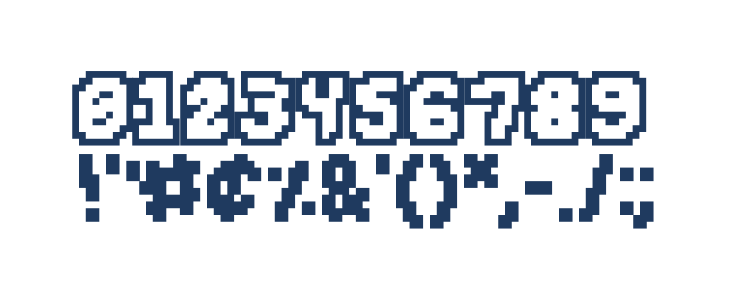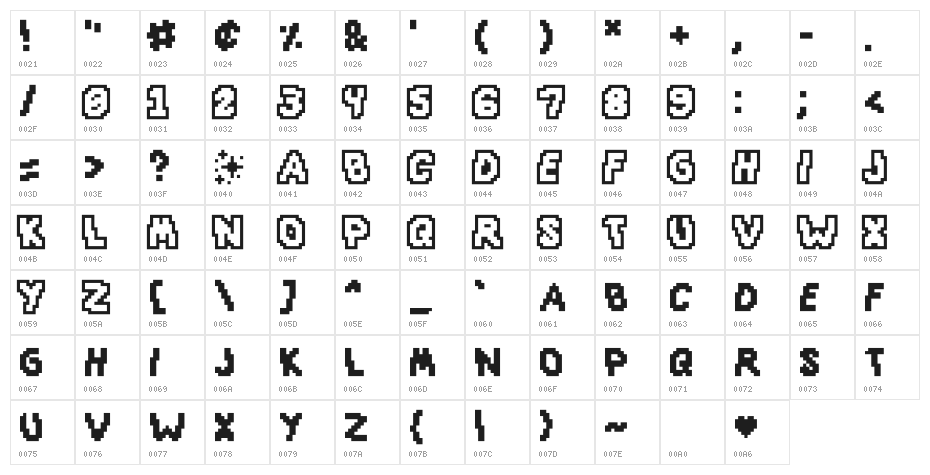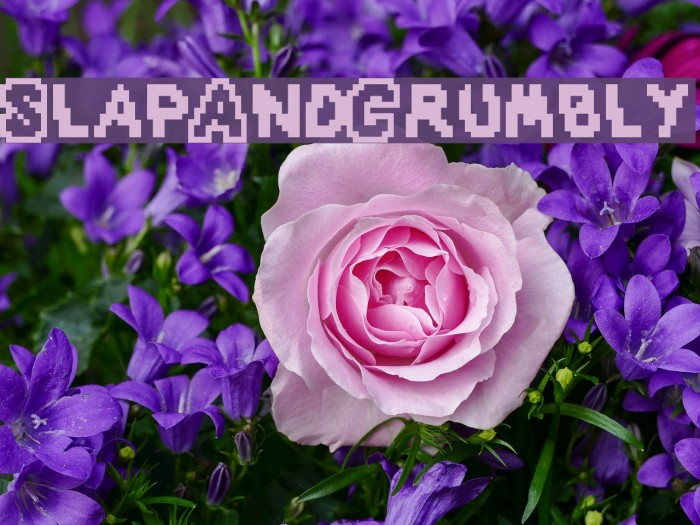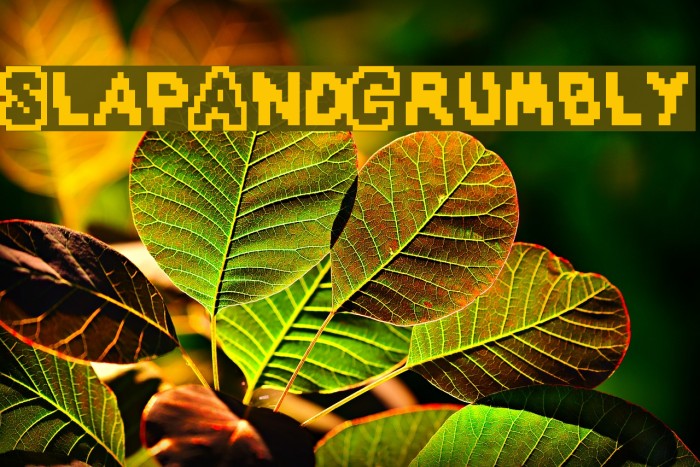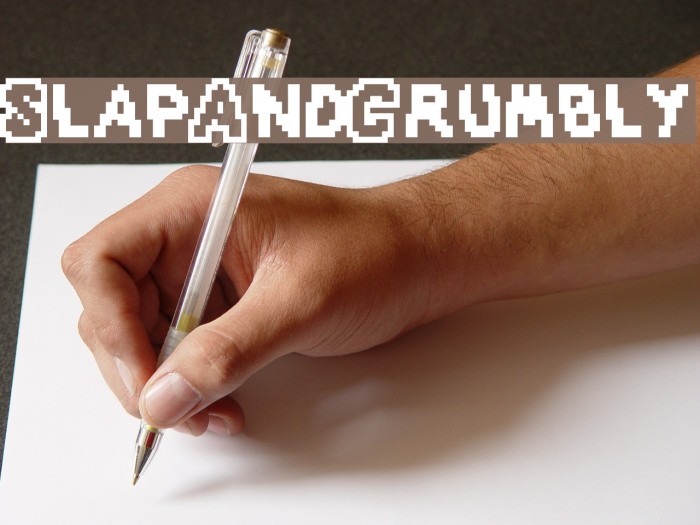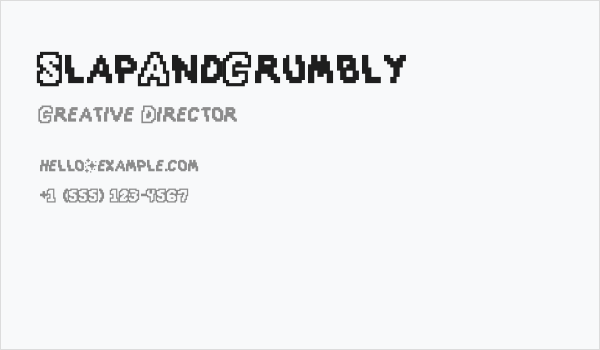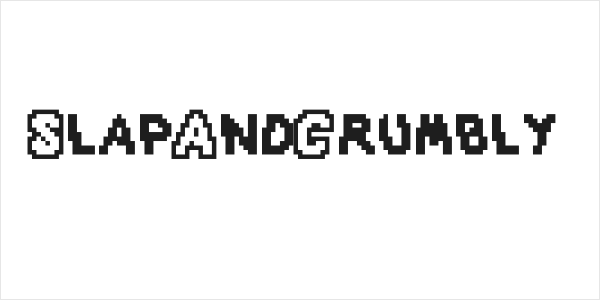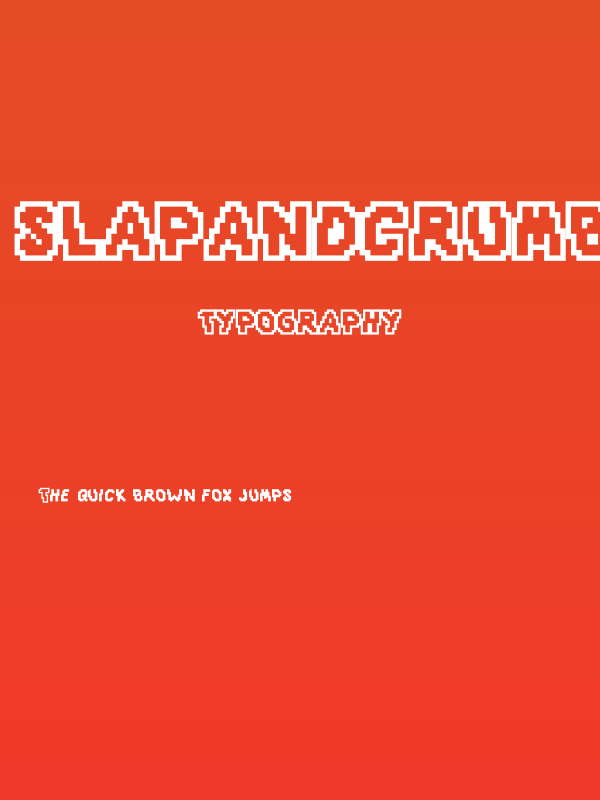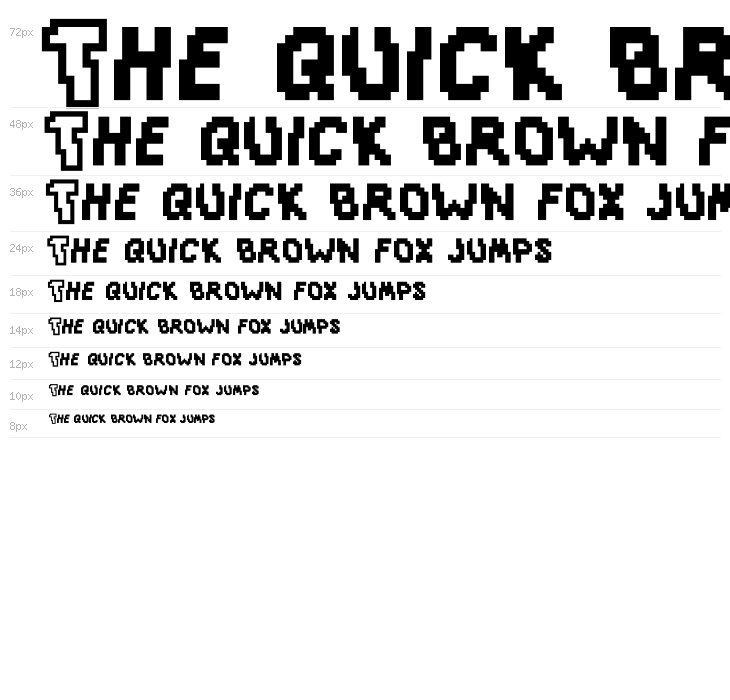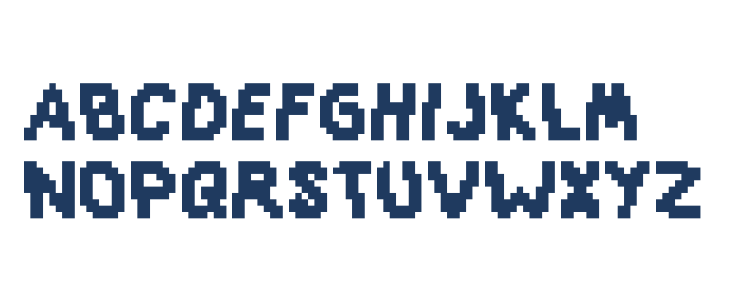
SlapAndCrumbly Font
SlapAndCrumbly Description
This font features a bold, pixelated style reminiscent of retro video games and digital displays. The characters are constructed with a blocky, geometric design, giving them a distinct, playful appearance. The uppercase and lowercase letters maintain a consistent width, creating a uniform look across the typeface. Numbers and special characters follow the same pixelated pattern, ensuring a cohesive aesthetic throughout. The font's unique style makes it ideal for projects that require a nostalgic or tech-inspired theme.
| Overall Style | Retro, Digital |
| Proposed Projects | Ideal for video game designs, tech-themed posters, retro branding, and digital art projects. |